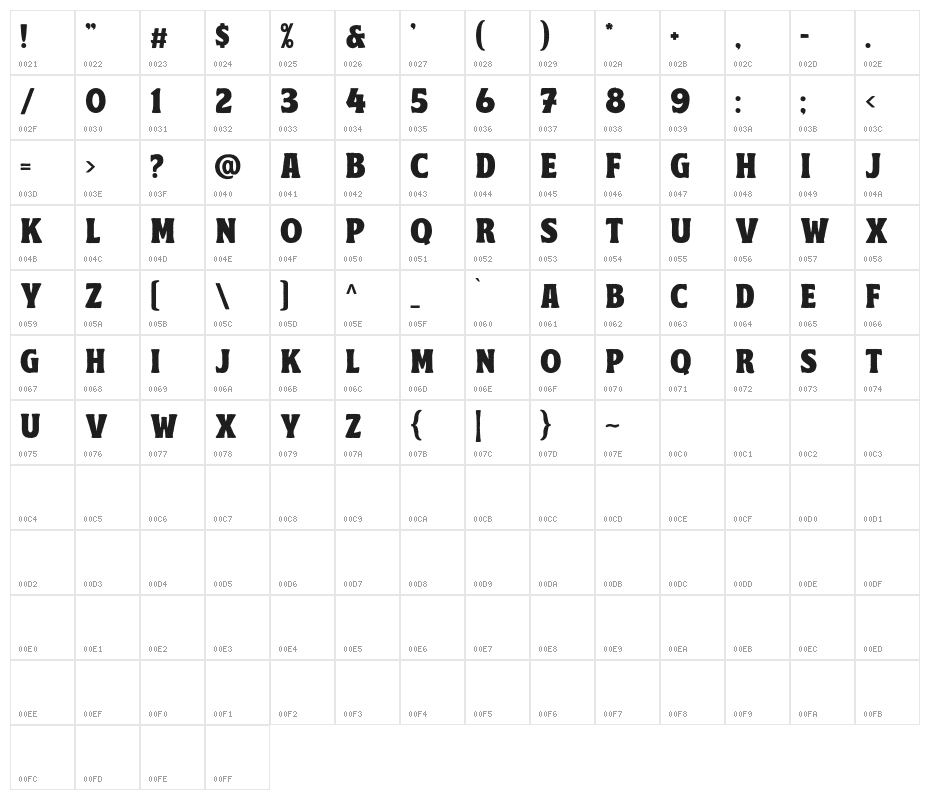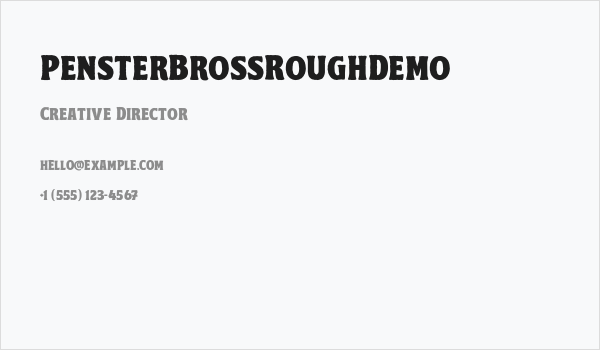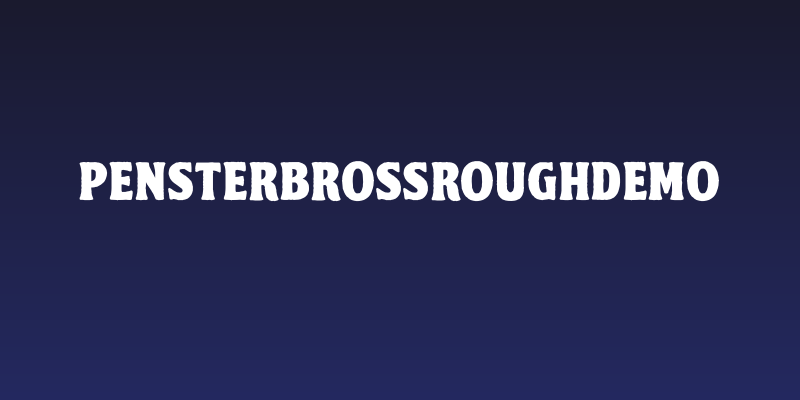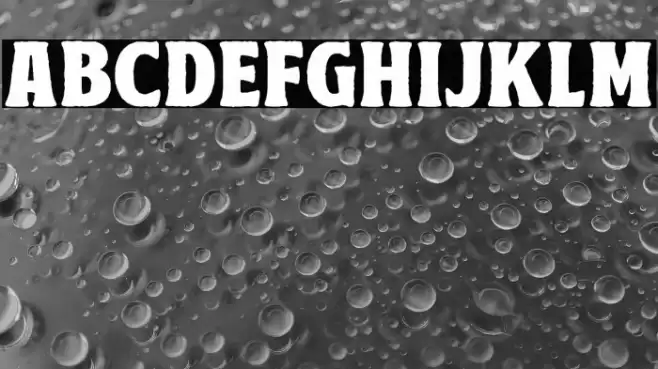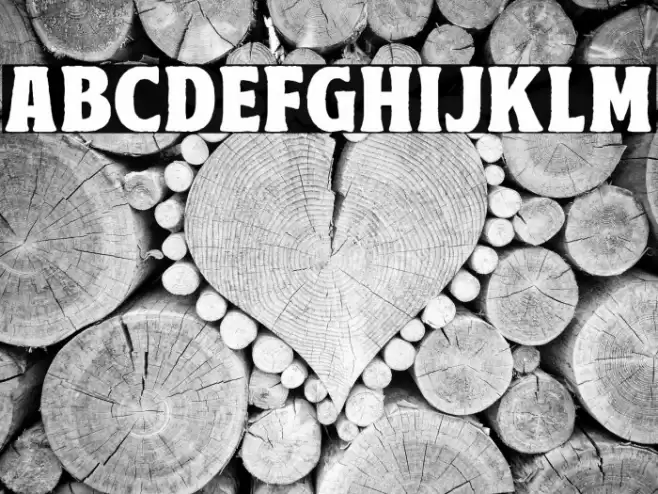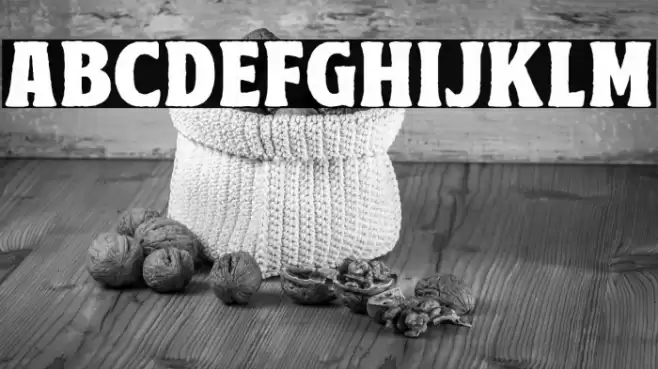
PensterBrossRoughDemo Font
PensterBrossRoughDemo Description
This font features a bold and rugged appearance, characterized by its rough edges and strong presence. The uppercase and lowercase letters maintain a consistent weight, providing a sense of uniformity despite the textured finish. The numbers and special characters follow the same design ethos, ensuring a cohesive look across all glyphs. The font's rough and distressed style gives it a handmade, vintage feel, making it ideal for projects that require a touch of authenticity and character.
| Proposed Projects | Ideal for vintage posters, branding, logos, and packaging that require a bold, authentic look. |